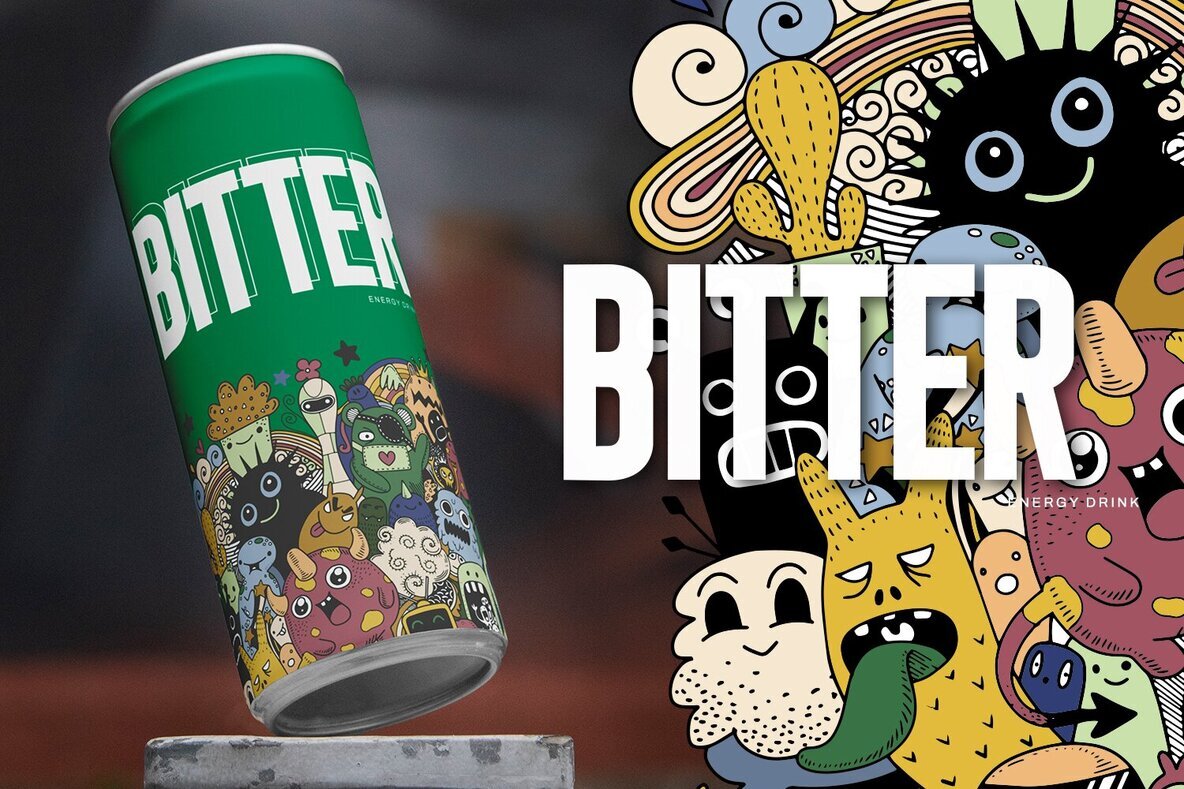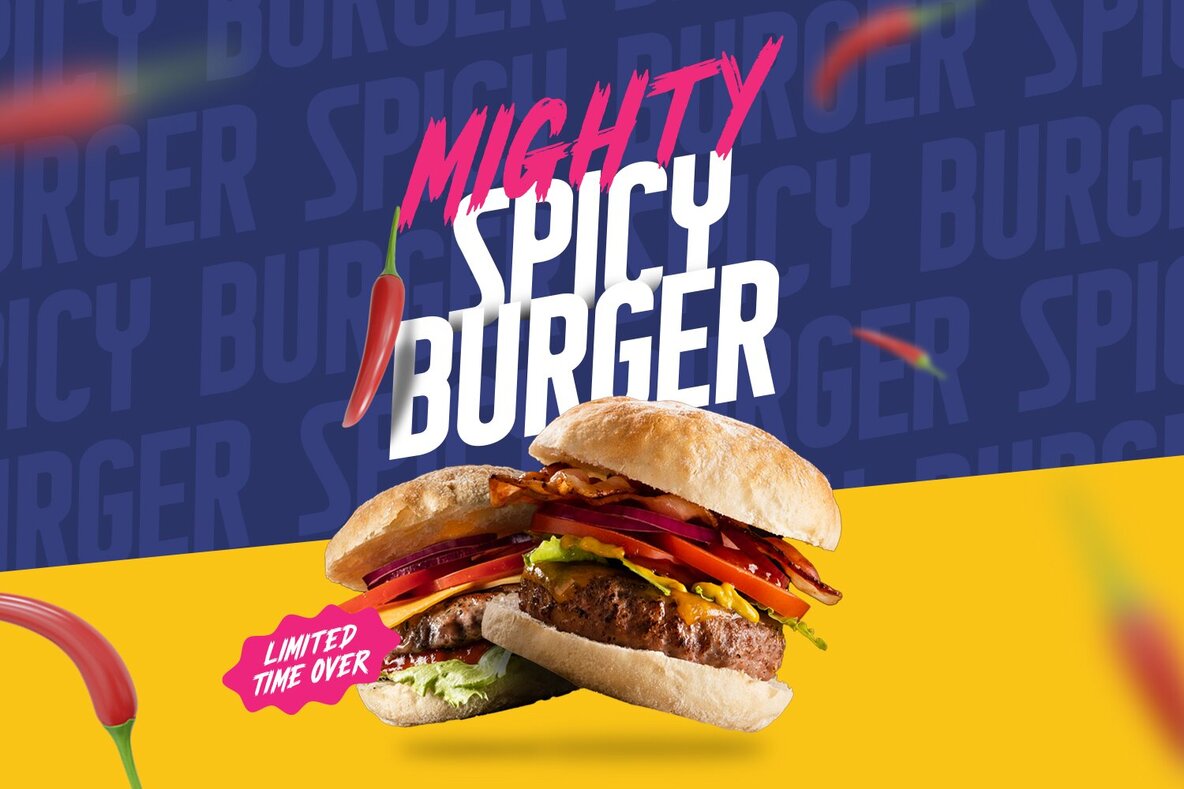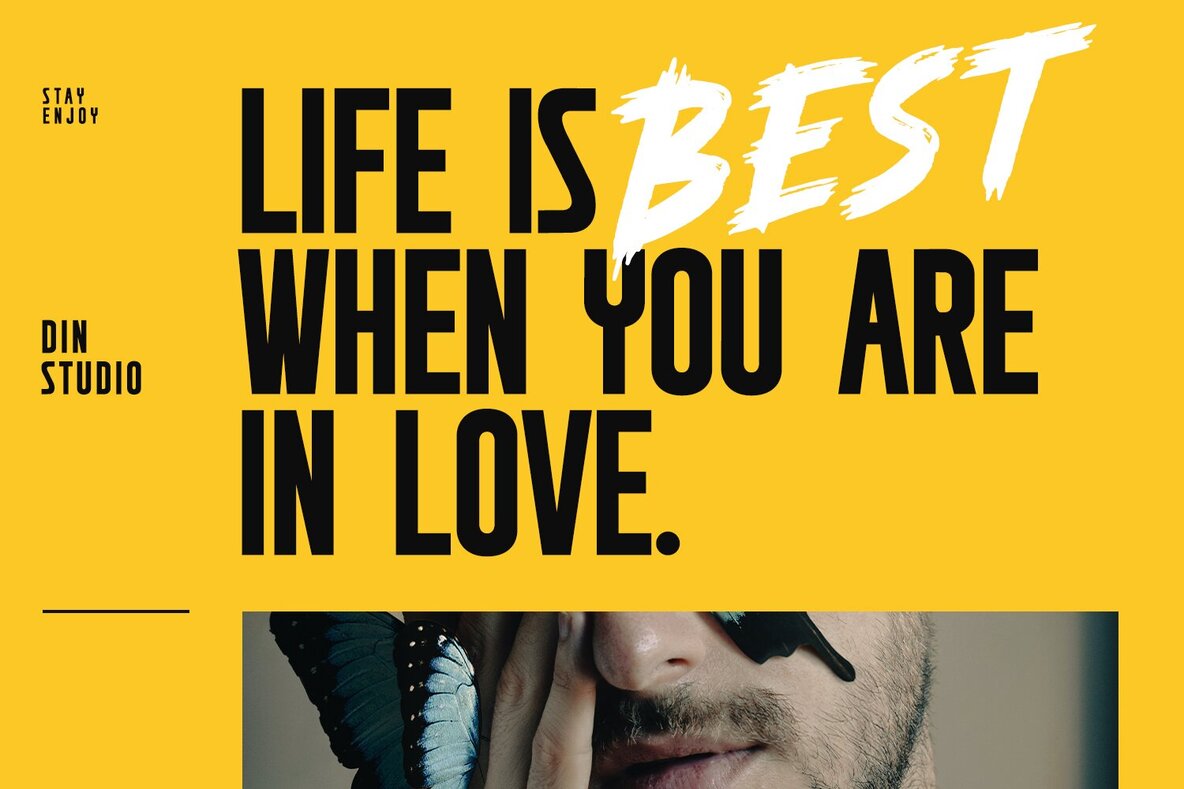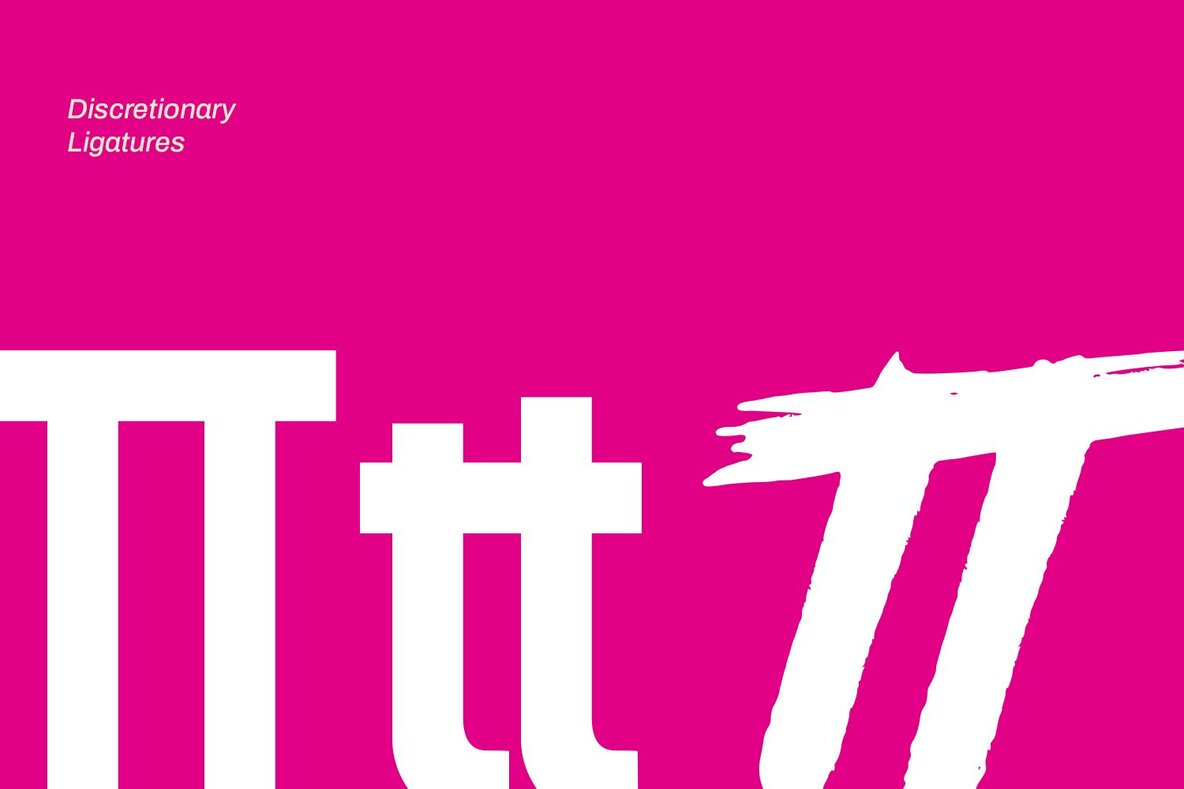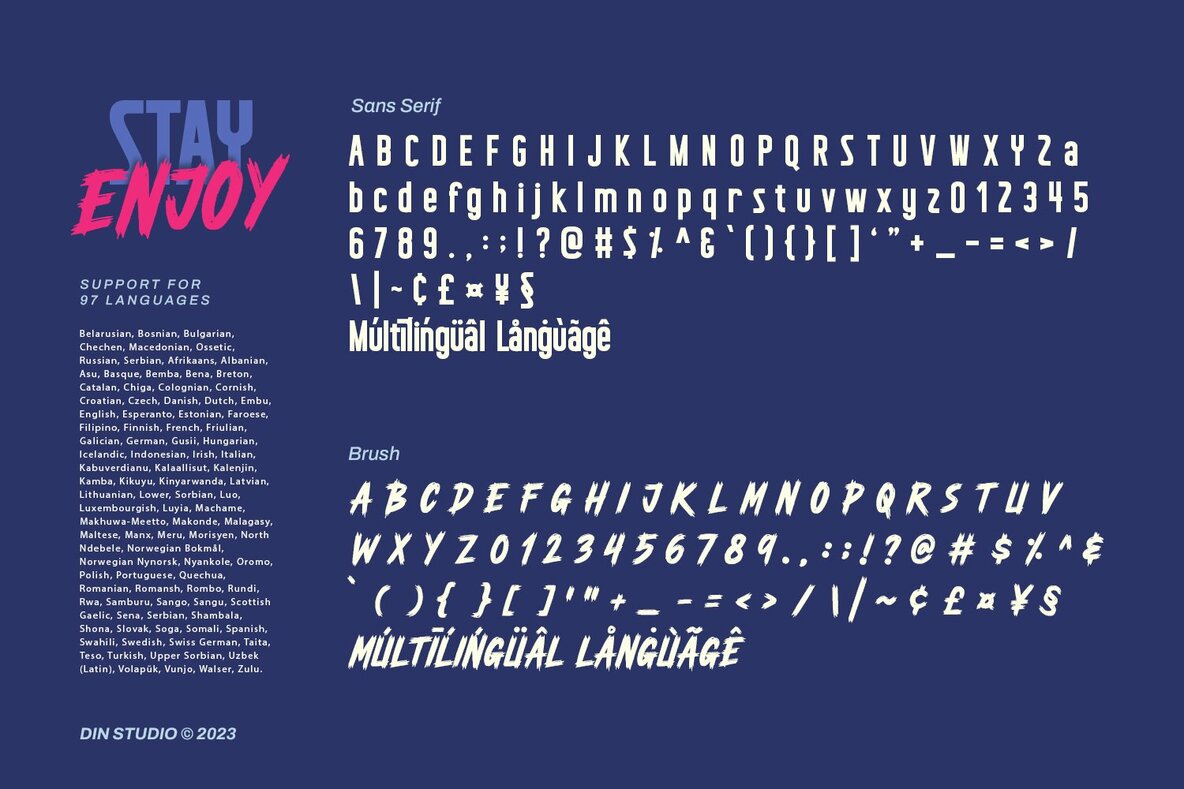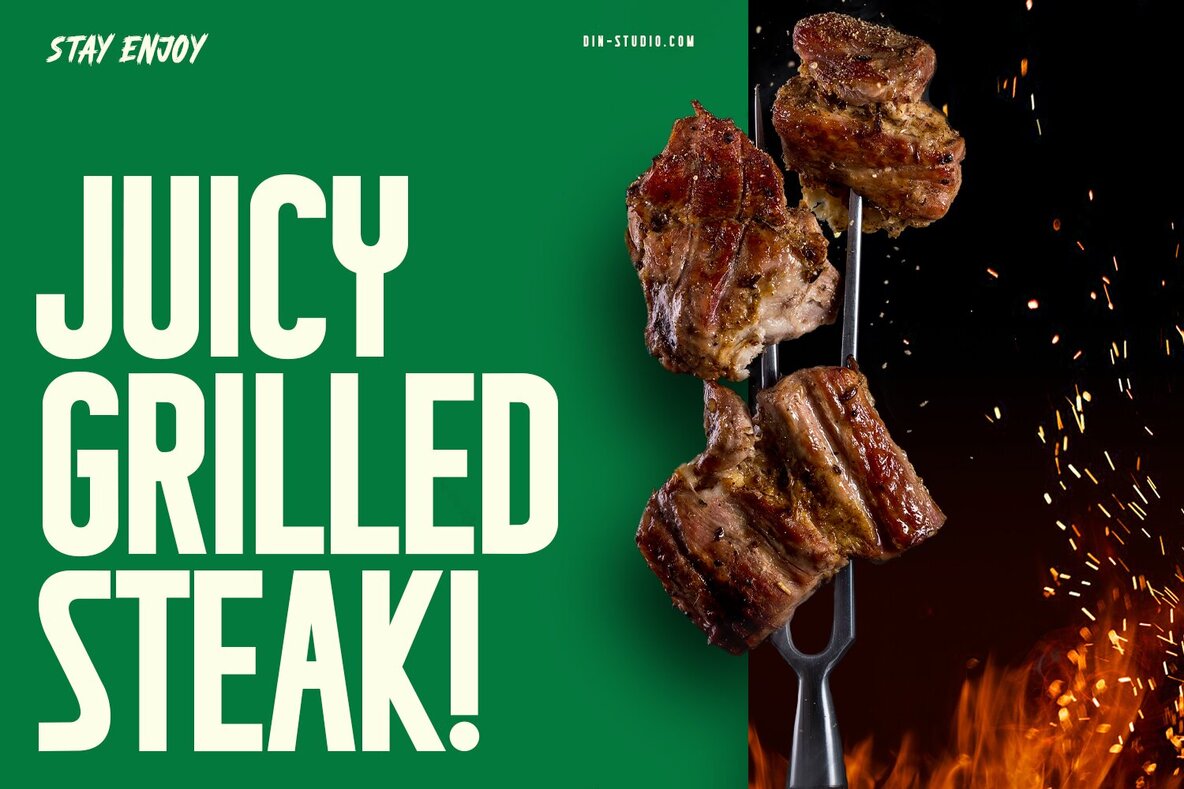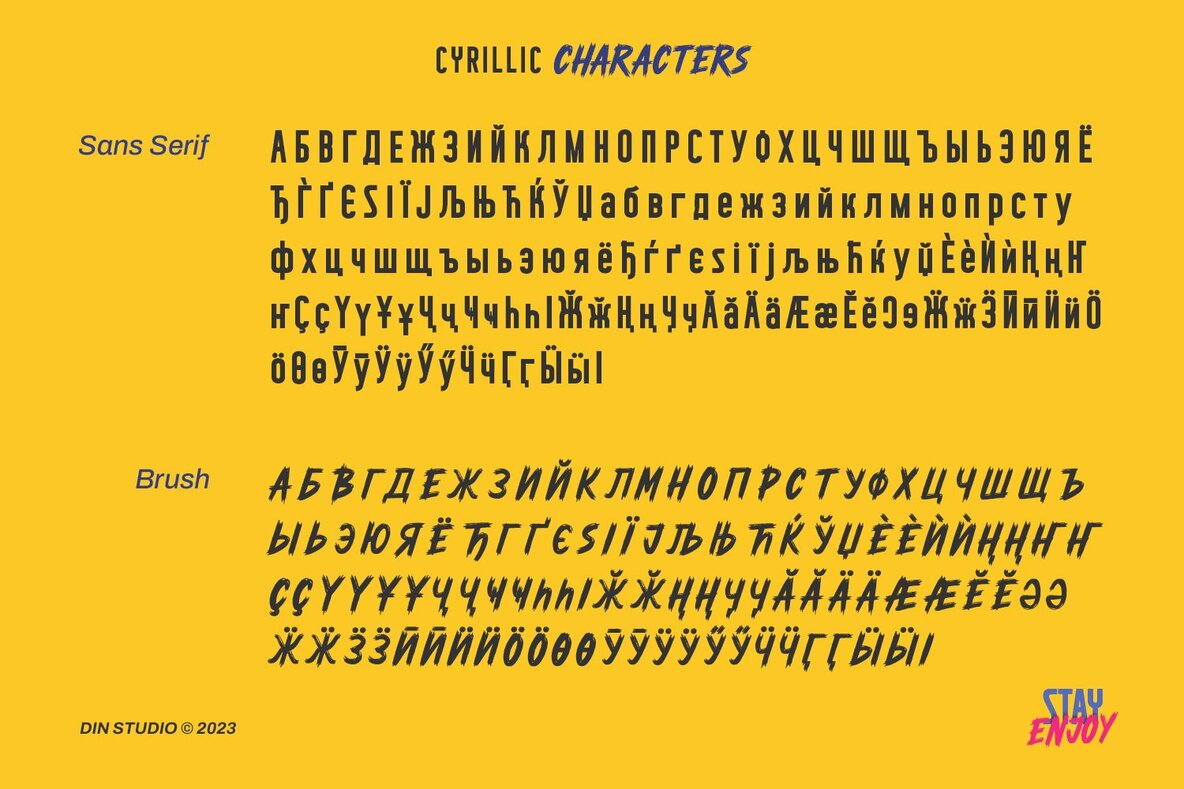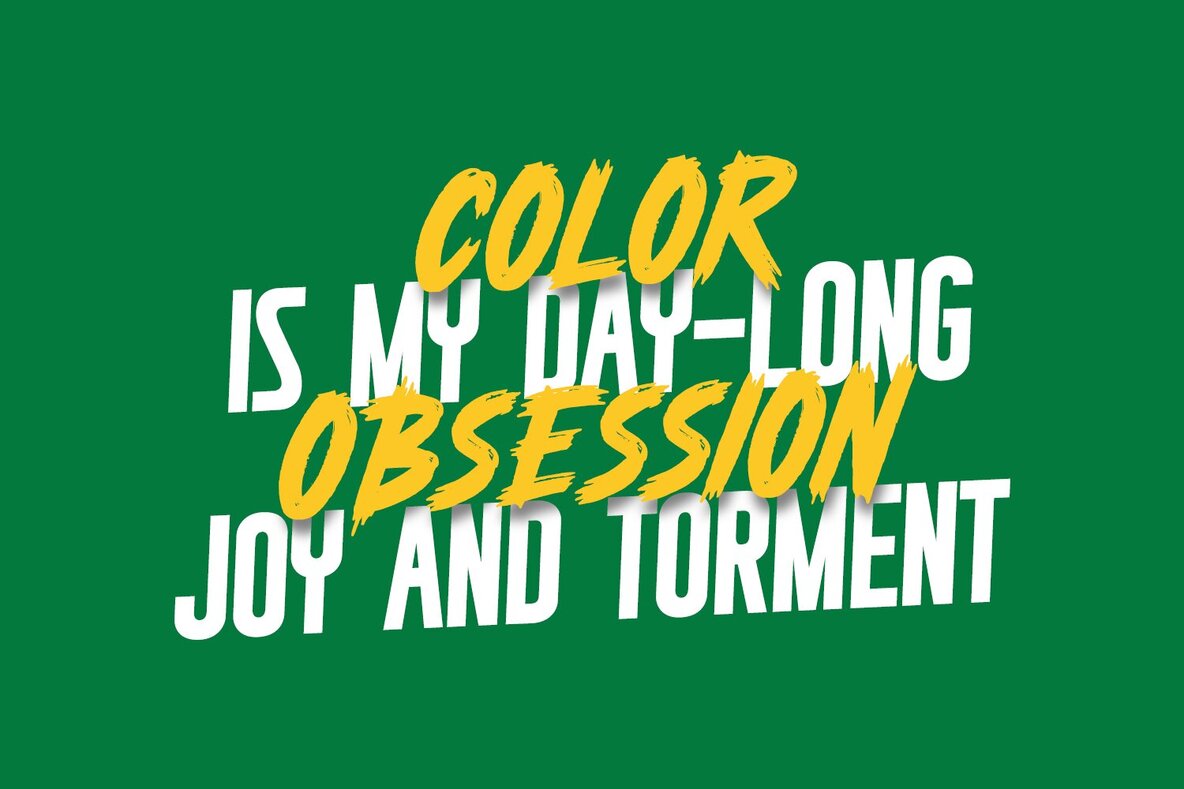
Stay Enjoy Font
Stay Enjoy Sans
Stay Enjoy Brush
Stay Enjoy is a captivating sans serif and bruh font duo. The sans serif font in the Stay Enjoy is a testament to timeless elegance and sophistication. Crafted with precision, its letters embody clean lines and a modern aesthetic. In striking contrast to the sans serif counterpart, the brush font of the Stay Enjoy bursts forth with creativity and energy. Each letter is masterfully crafted in large, expressive strokes, creating a dynamic and eye-catching composition. The bold, hand-painted appearance of this font adds a personal and human touch to your designs. Together, the Stay Enjoy marries elegance and spontaneity, offering a versatile and captivating typography solution that can elevate your design projects. Enjoy the features here. Features: Stay Enjoy fits in headlines, logos, posters, flyers, greeting cards, branding materials, print media, editorial layouts, website headers, and many more. Find out more ways to use this font by taking a look at the font preview.